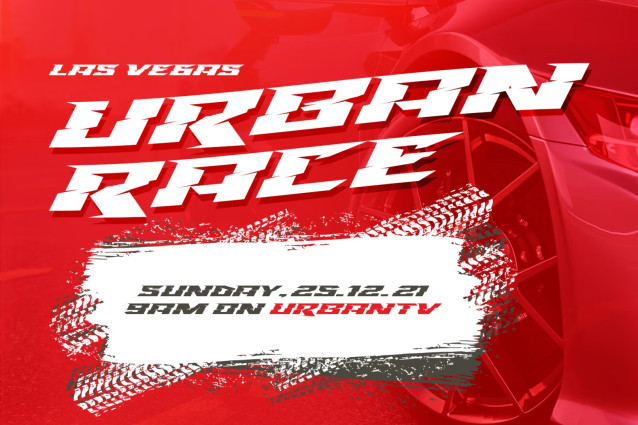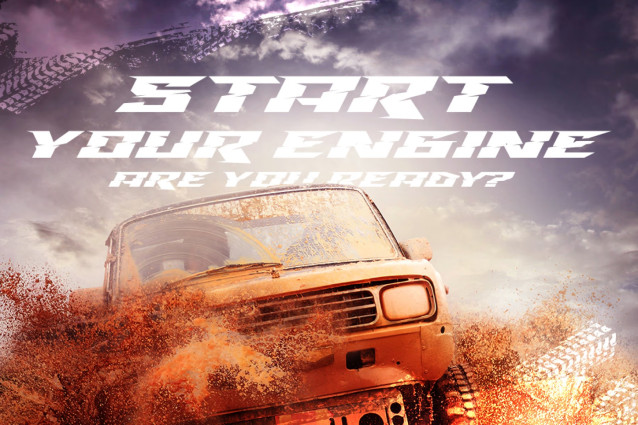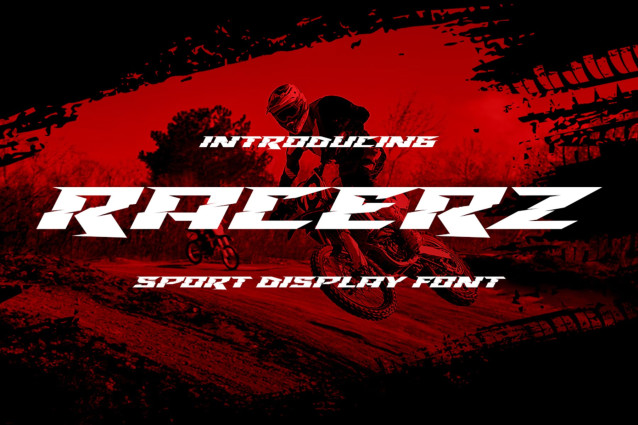
Racerz – Sport Display Font
Introducing Racerz – Sport Display with strong and Sport nuances. very suitable for the title, logo, typography, clothes, magazines, brochures, packaging and much more for your design needs, making your designs more modern and professional